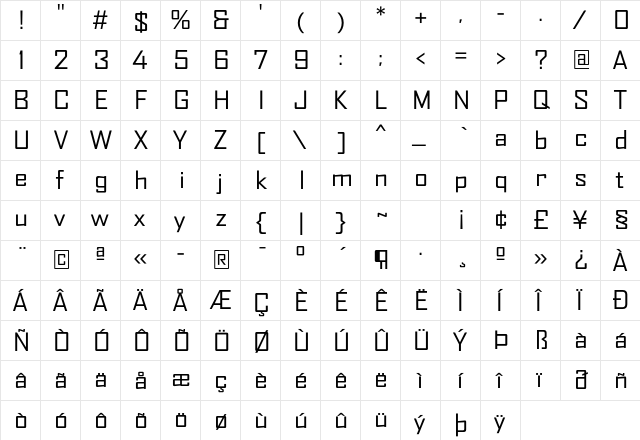
AgencyFB Regular Wide Regular Font Preview
AgencyFB Regular Wide Regular
AgencyFB Regular Wide Regular Font Details
| Foundry | The Font Bureau, Inc. |
Design Context for AgencyFB Regular Wide Typeface
AgencyFB Regular Wide is a composed and adaptable typeface that performs quietly and consistently across a wide range of design contexts.